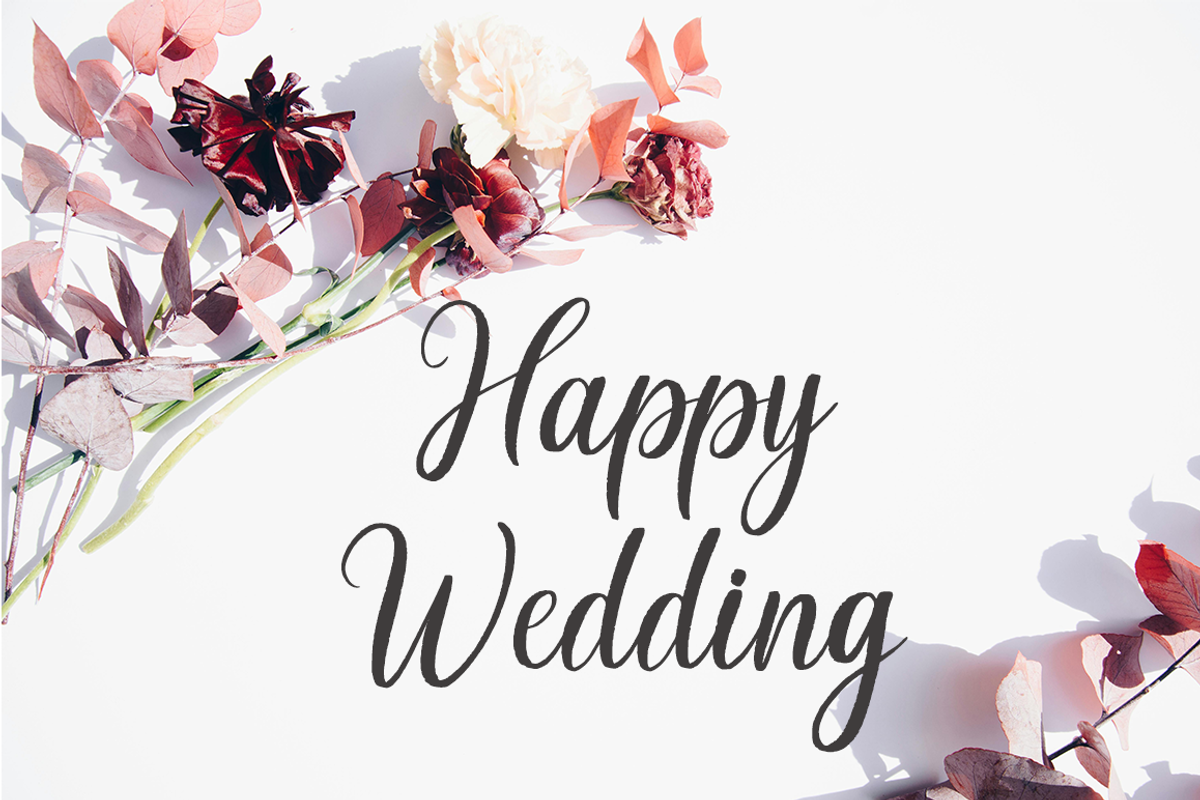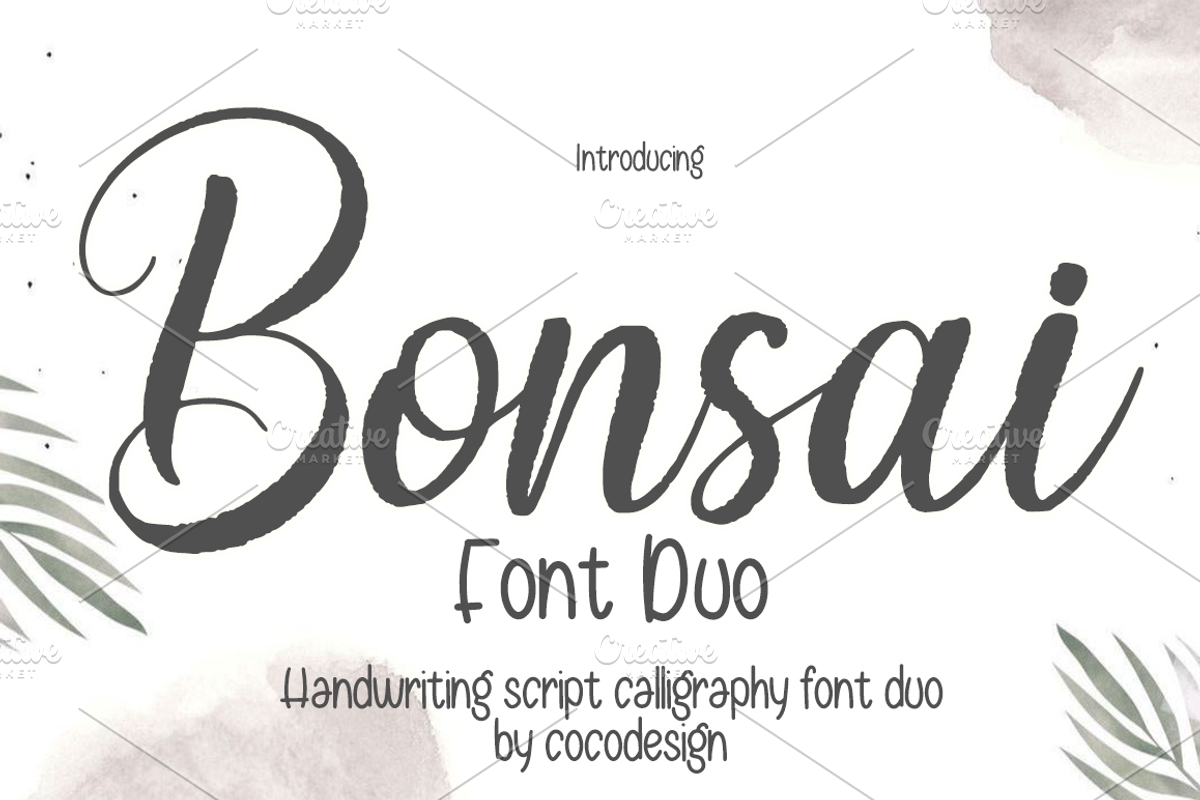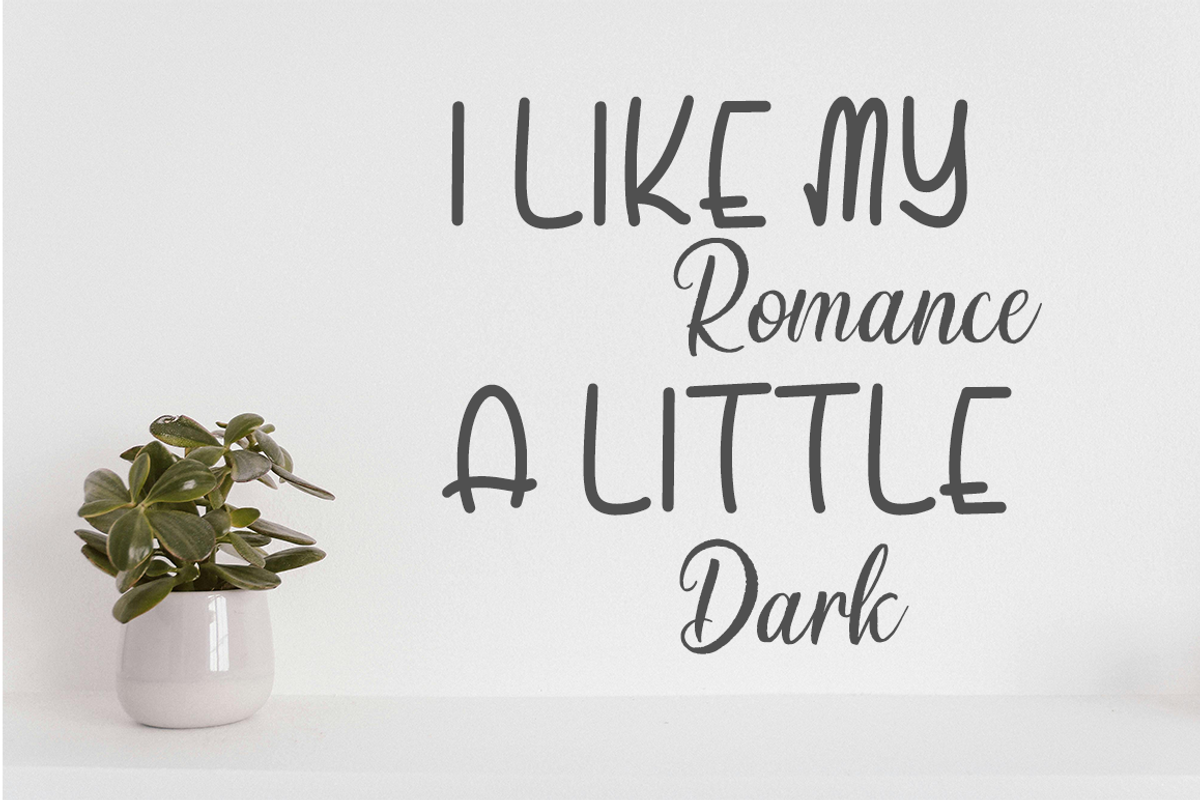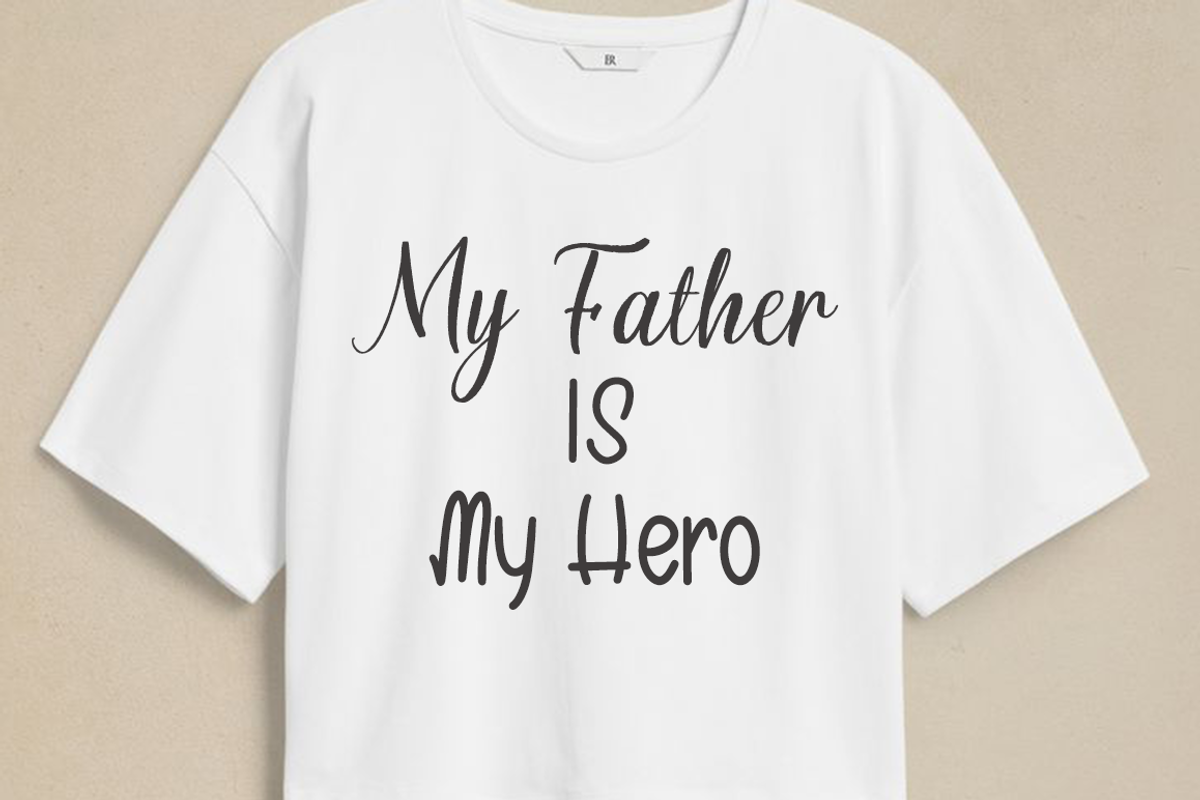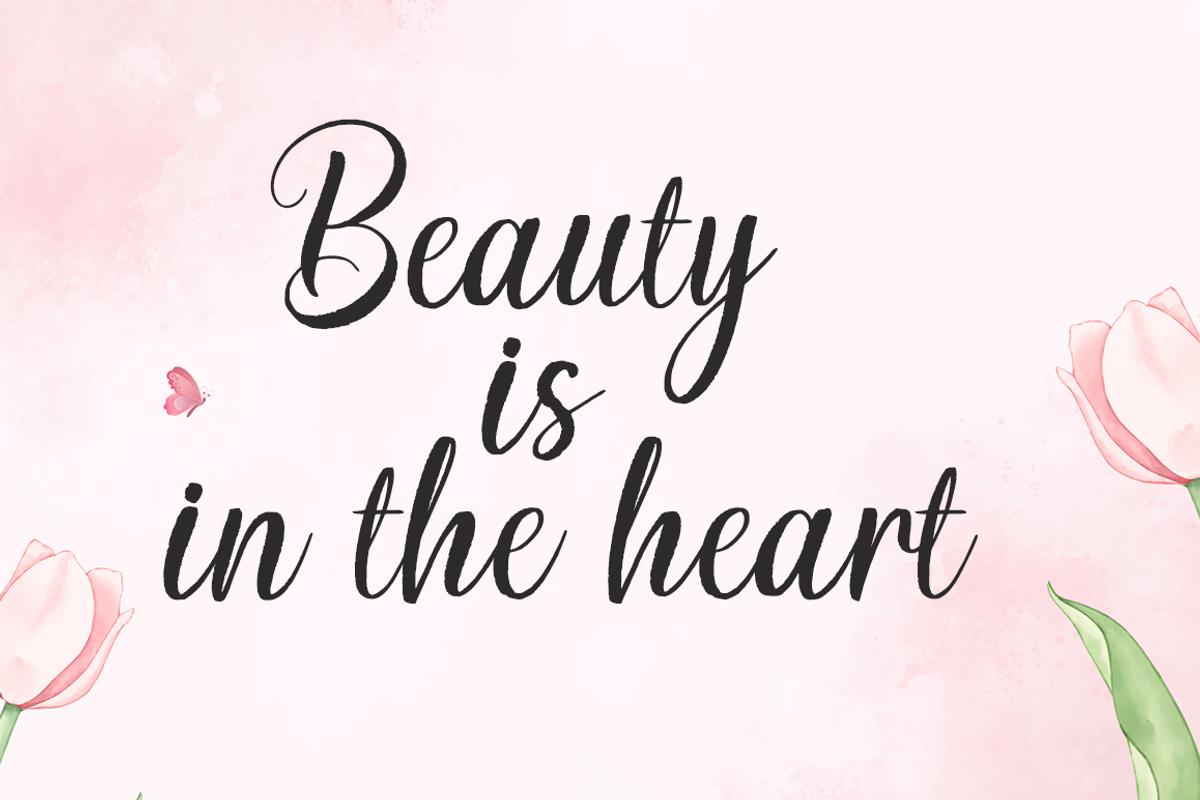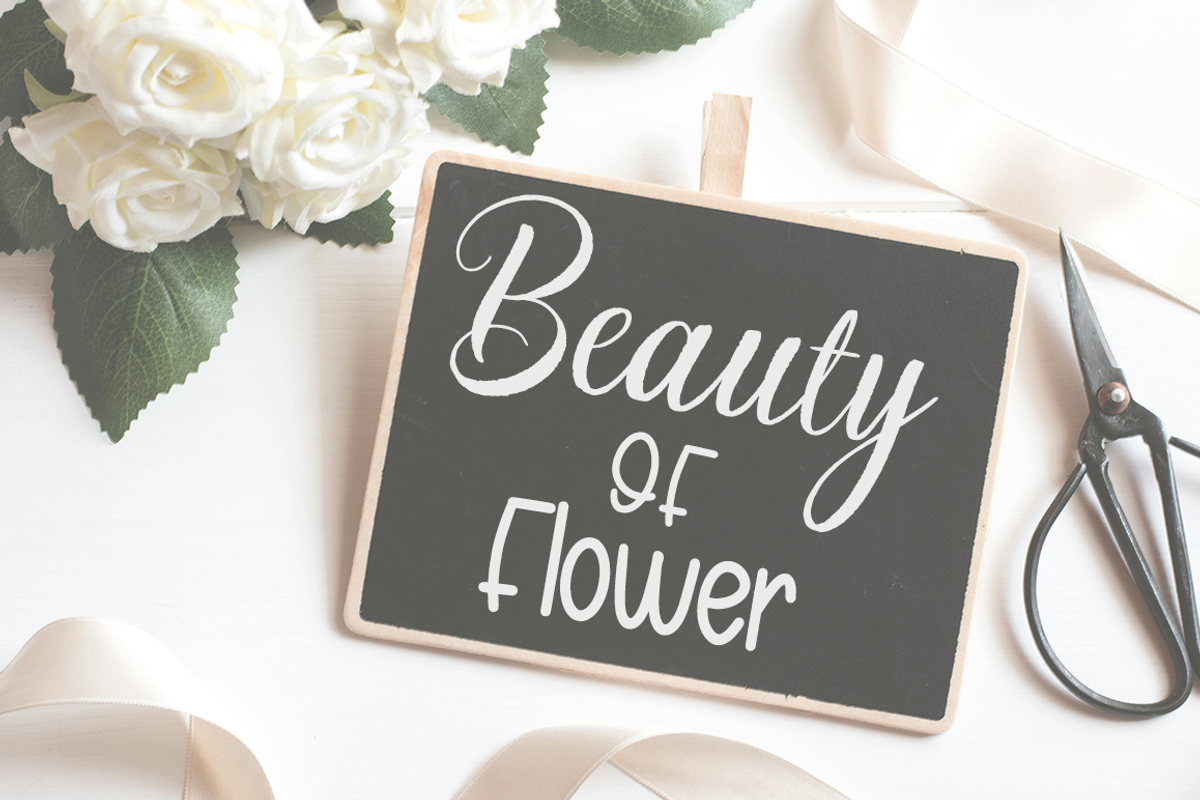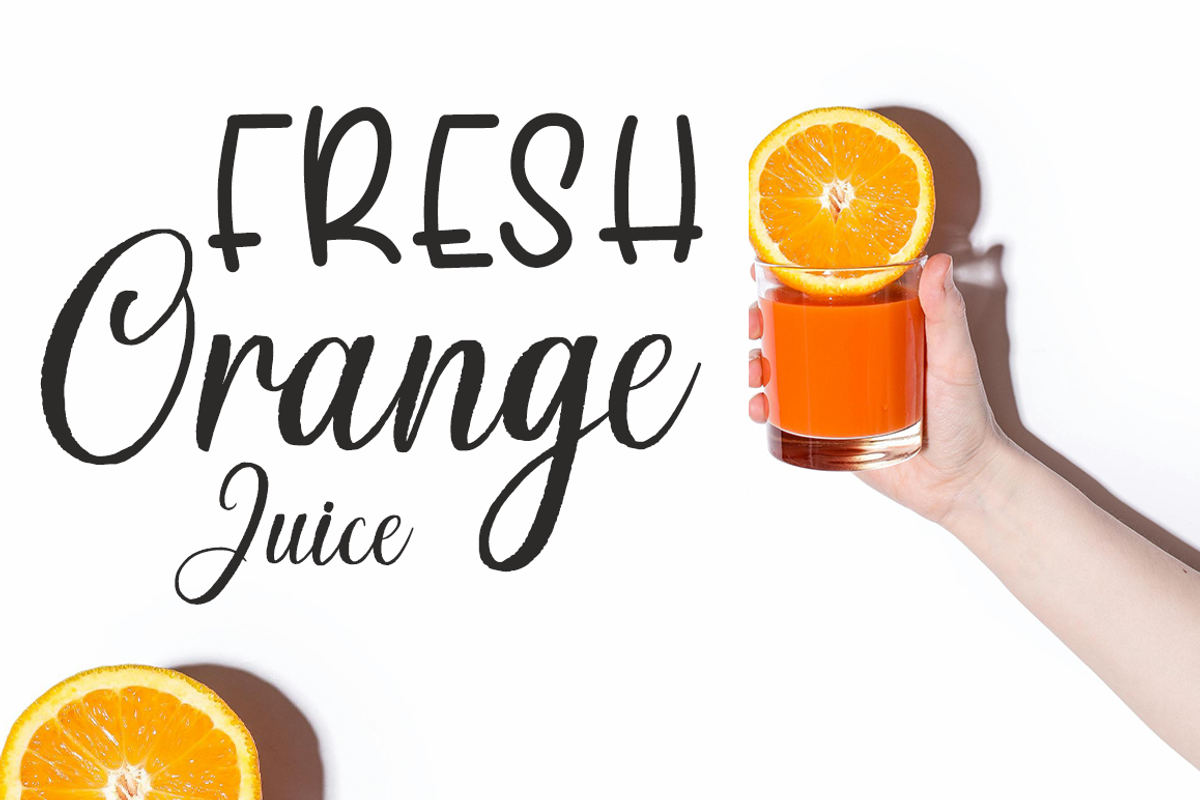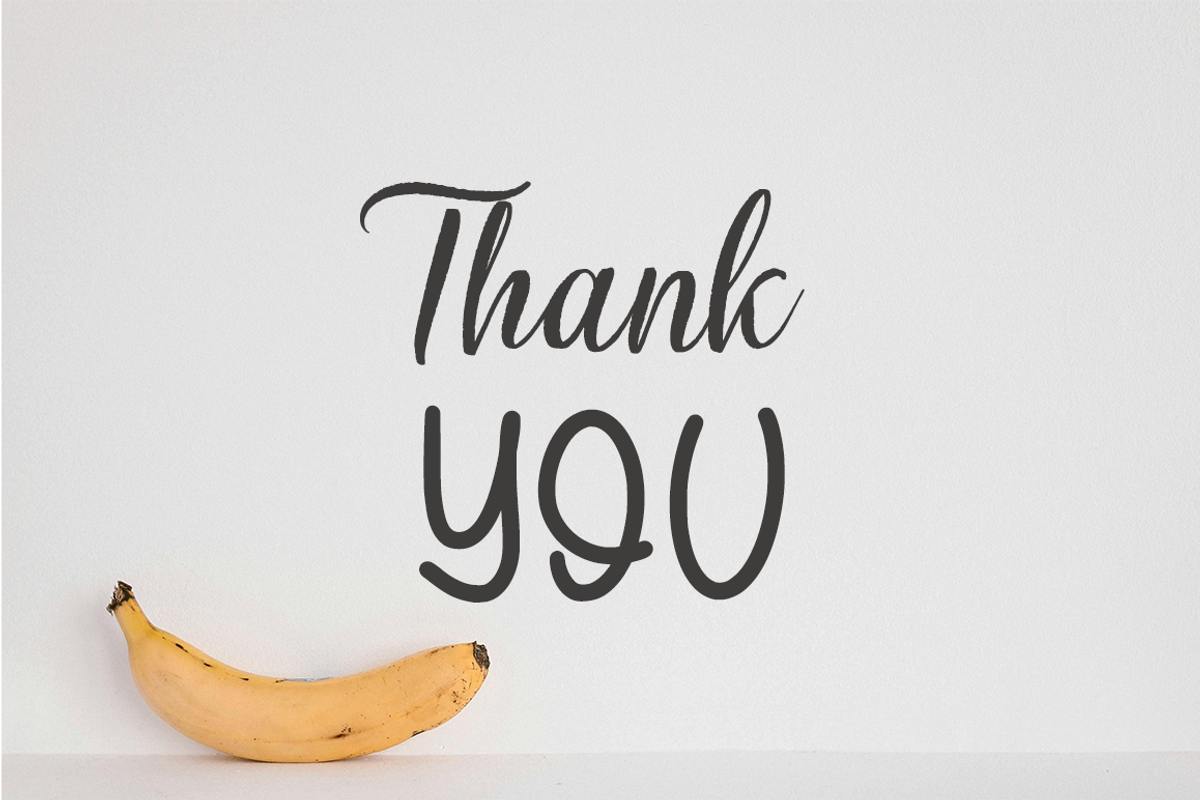
Bonsai
Introducing Bonsai - an adorable and effervescent duo font that epitomizes modern charm and amusement. With an effortlessly attractive aesthetic, Bonsai font promises to be the perfect addition to your design repertoire. Whether used in unison or individually, this font brings an irresistible appeal to a variety of themes. From effervescent children's events, engaging school projects, festive holiday decor, celebratory birthday invites, sun-soaked summer designs, to trendy t-shirt graphics, sentimental crafting projects, standout stickers, and vibrant sublimation designs - Bonsai's versatility will add that much-needed playful touch to numerous creations. It's not just a font, it's an immediate upgrade to your design aesthetic. Welcome the world with Bonsai font duo – where cuteness meets style!